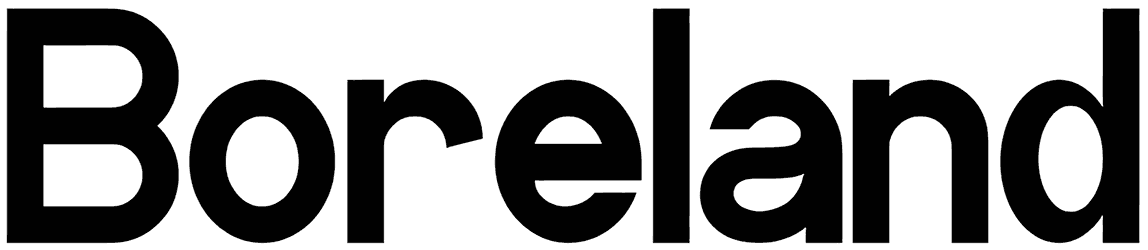
Boreland Font
Boreland is a contemporary geometric sans serif font designed to convey a futuristic feel. Thanks to the four styles it offers, this font can introduce a variety of ways to implement ideas, and in this way, it will allow you to choose the background and content.
This brutalist font‘s simple and minimal look can adapt to any project and give it a scientific feel. It is suitable for posters, advertisements, and product packaging if you do not need numbers.